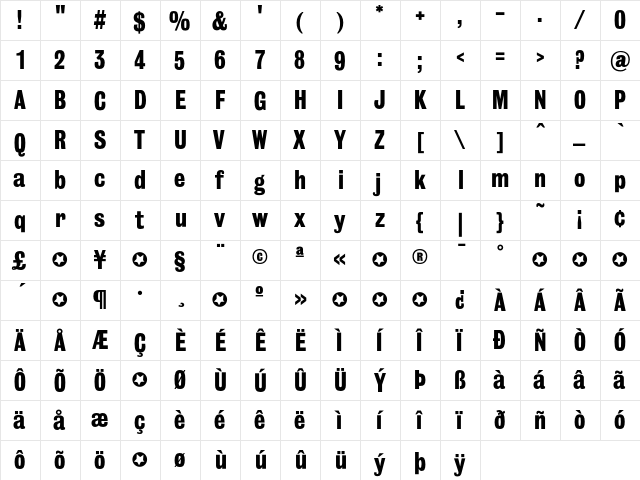
Bureau GrotThreeSeven
Design Context for Bureau Typeface
Bureau takes a measured approach to typography — its balanced proportions and neutral character make it a reliable workhorse for both digital and print work.